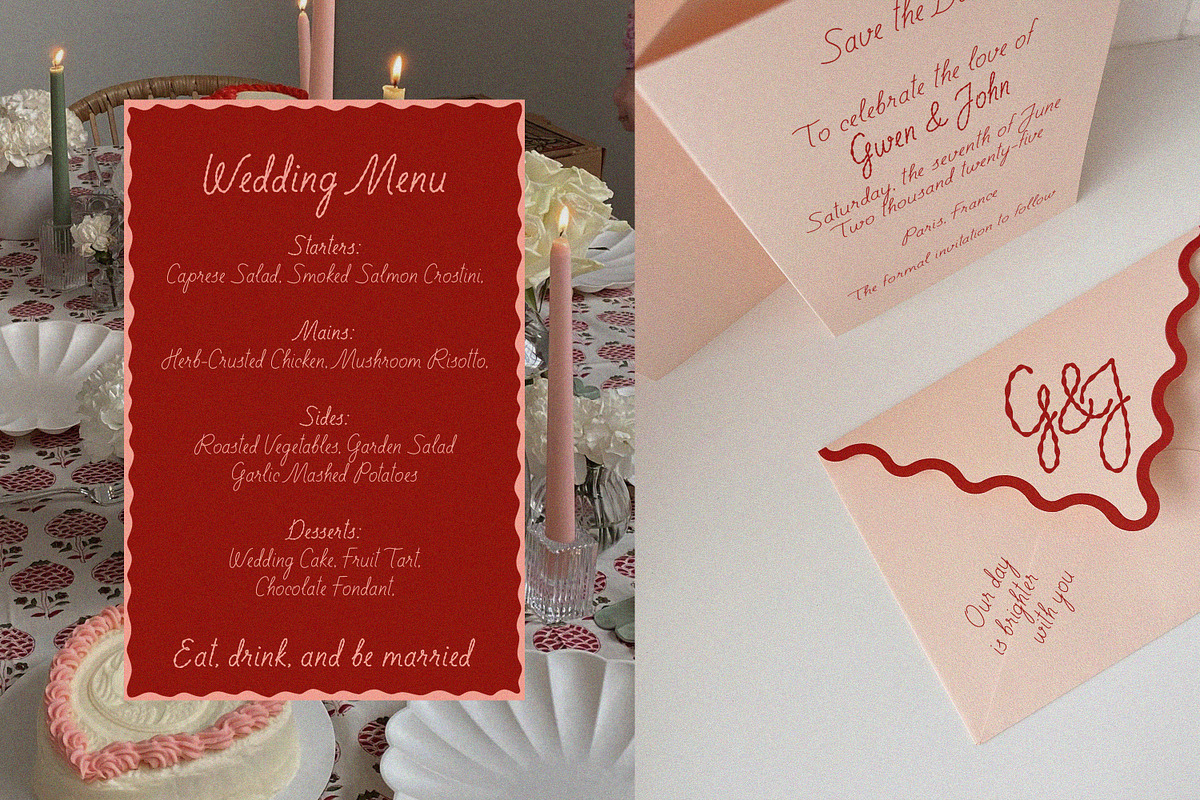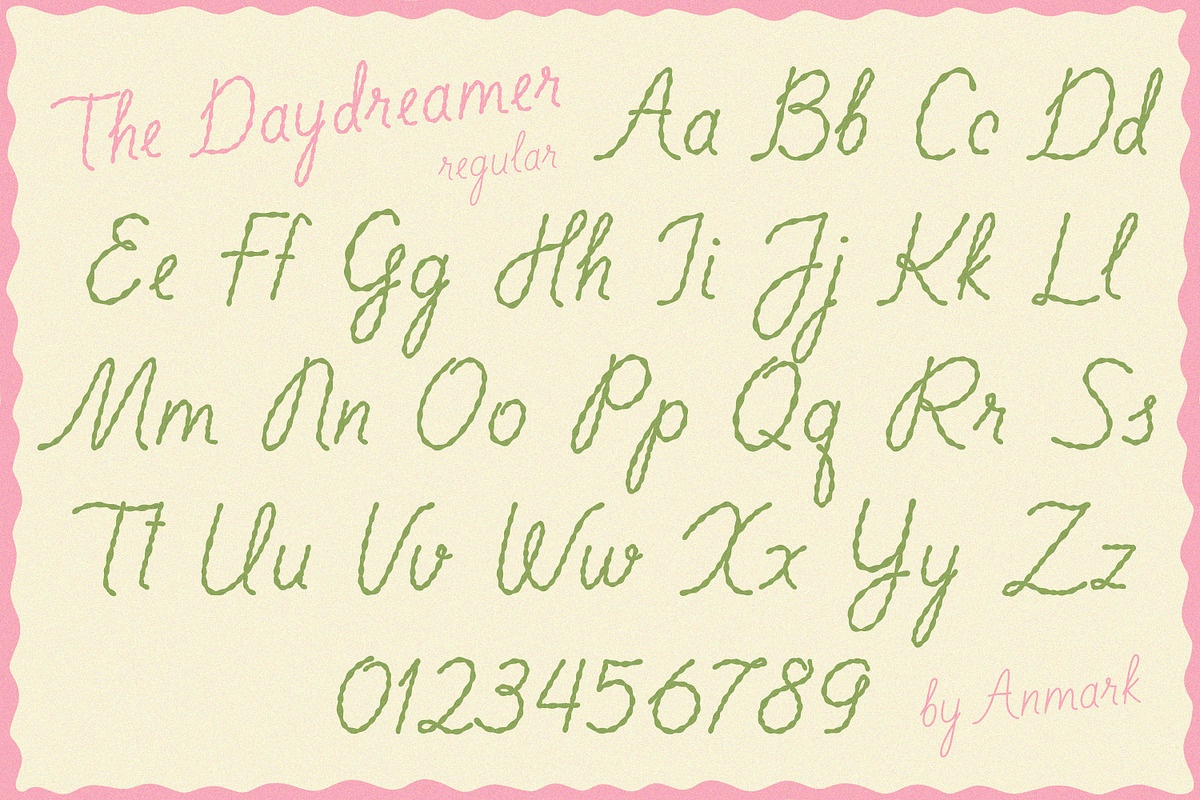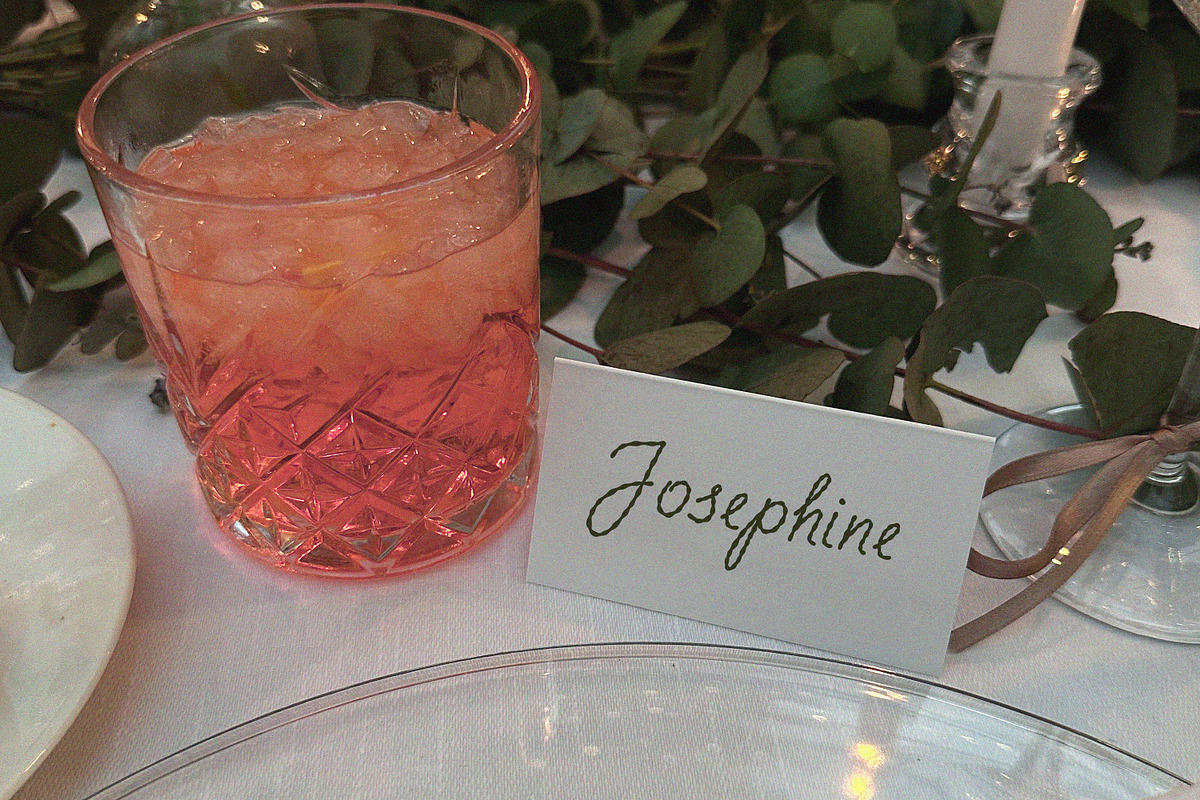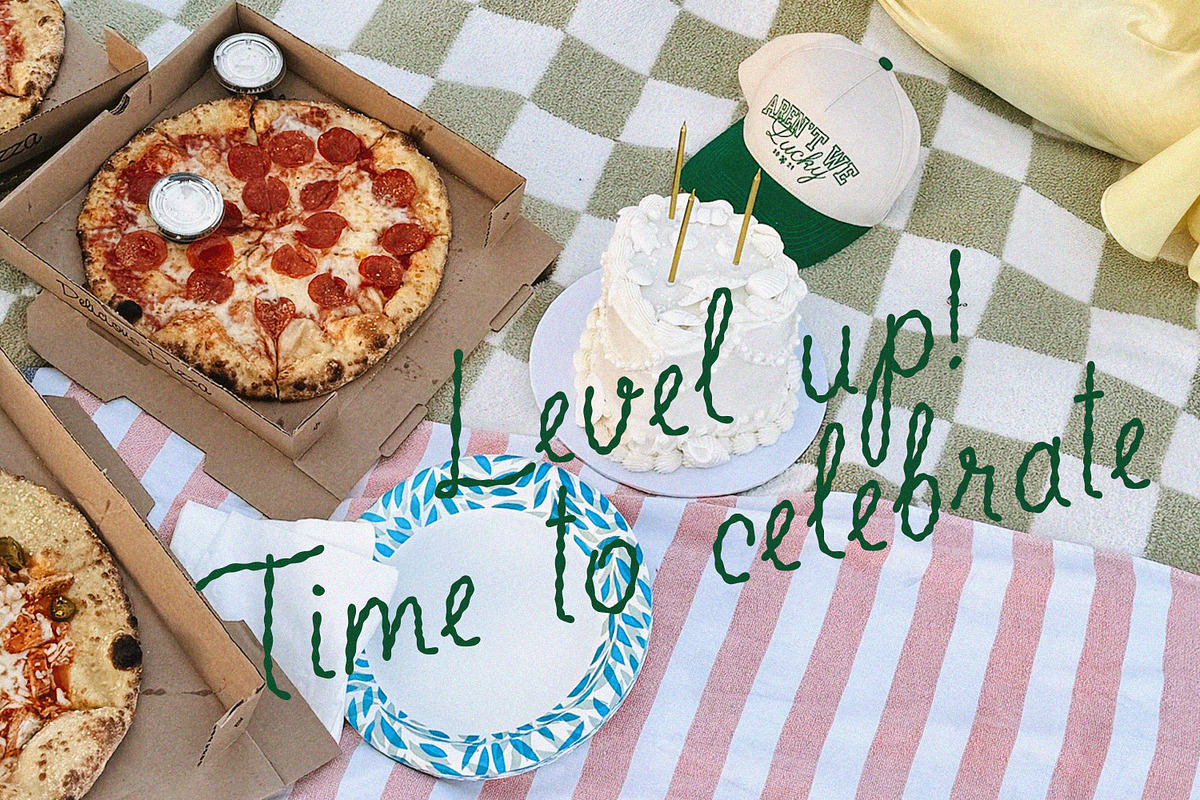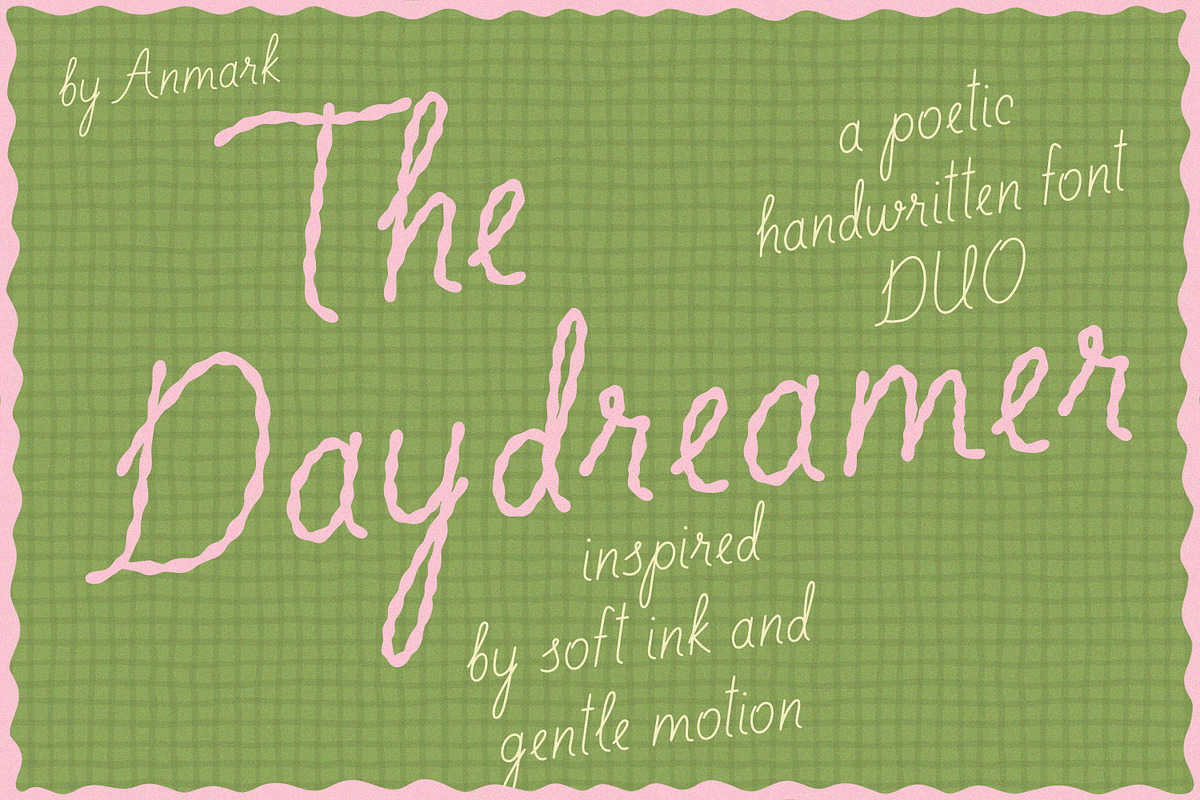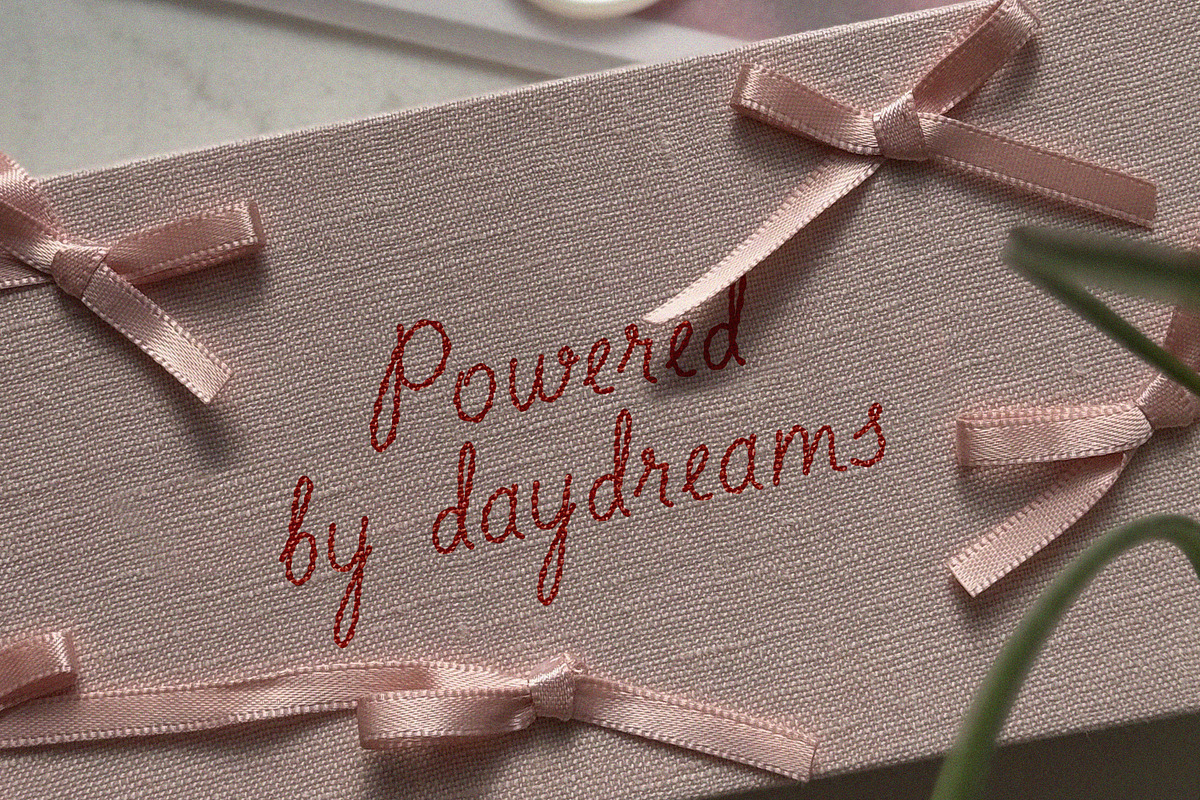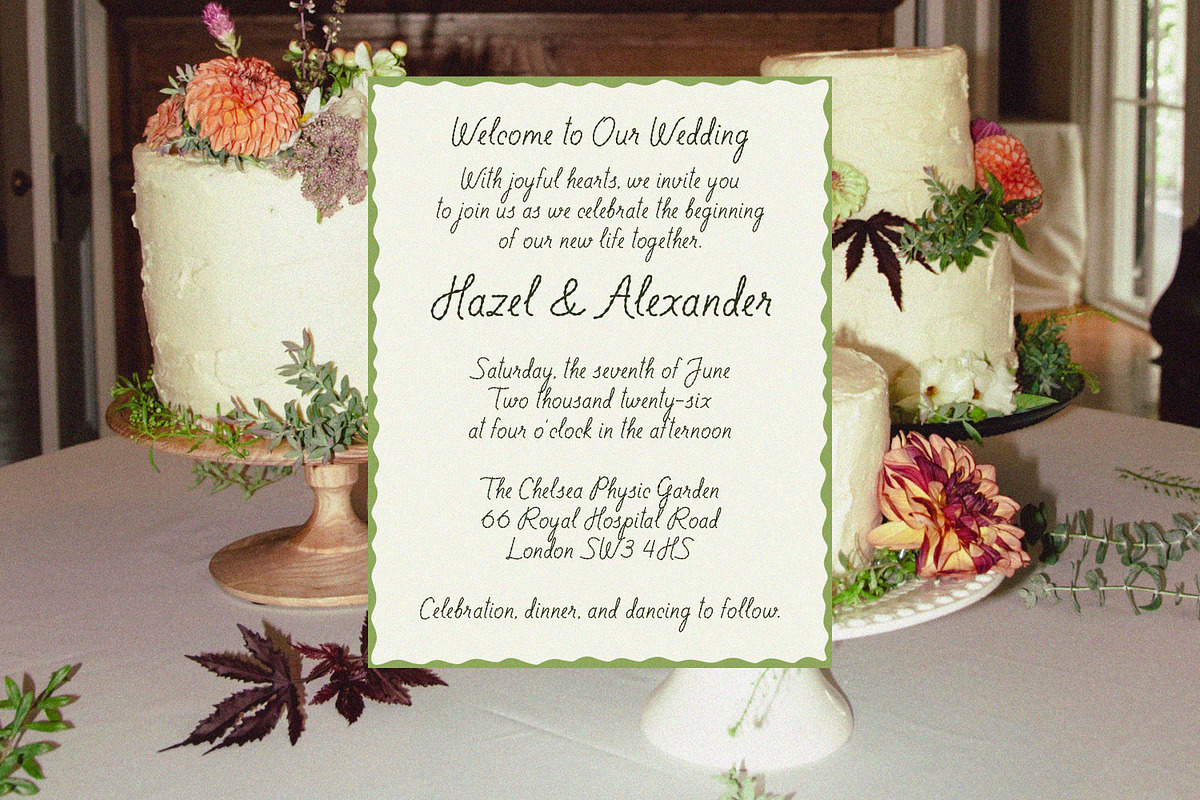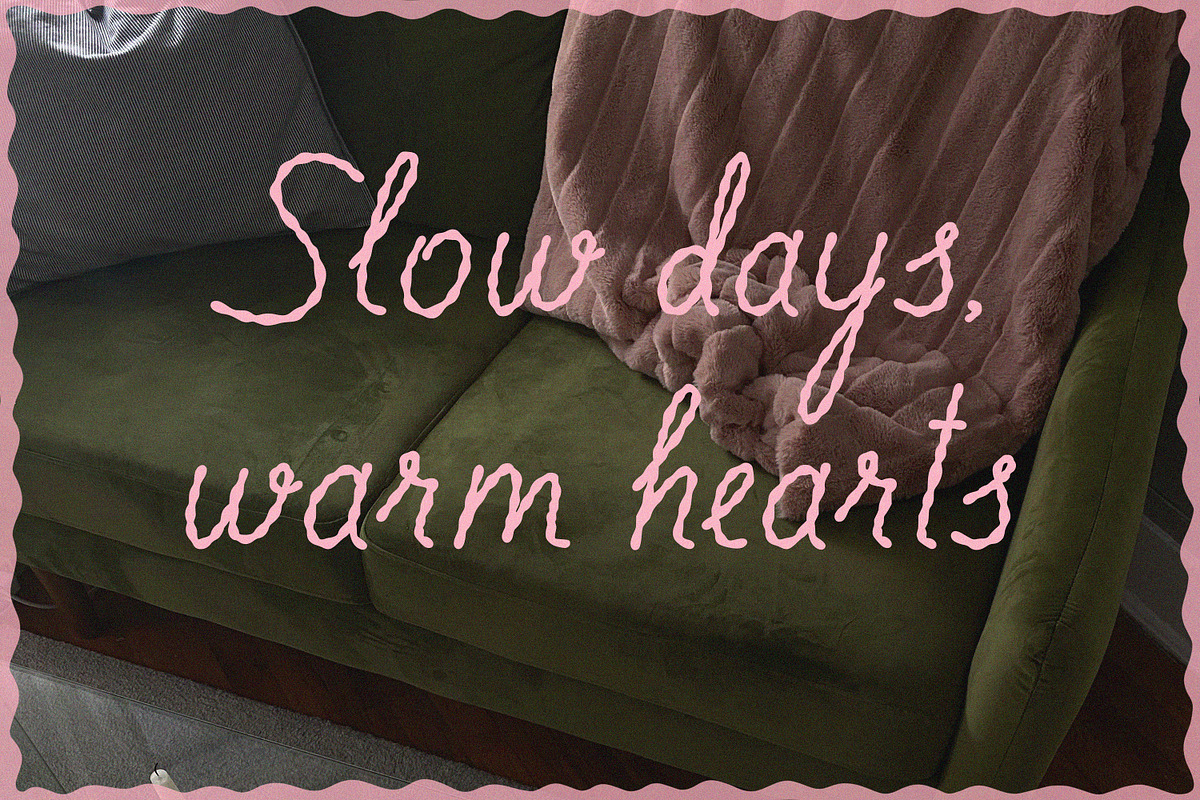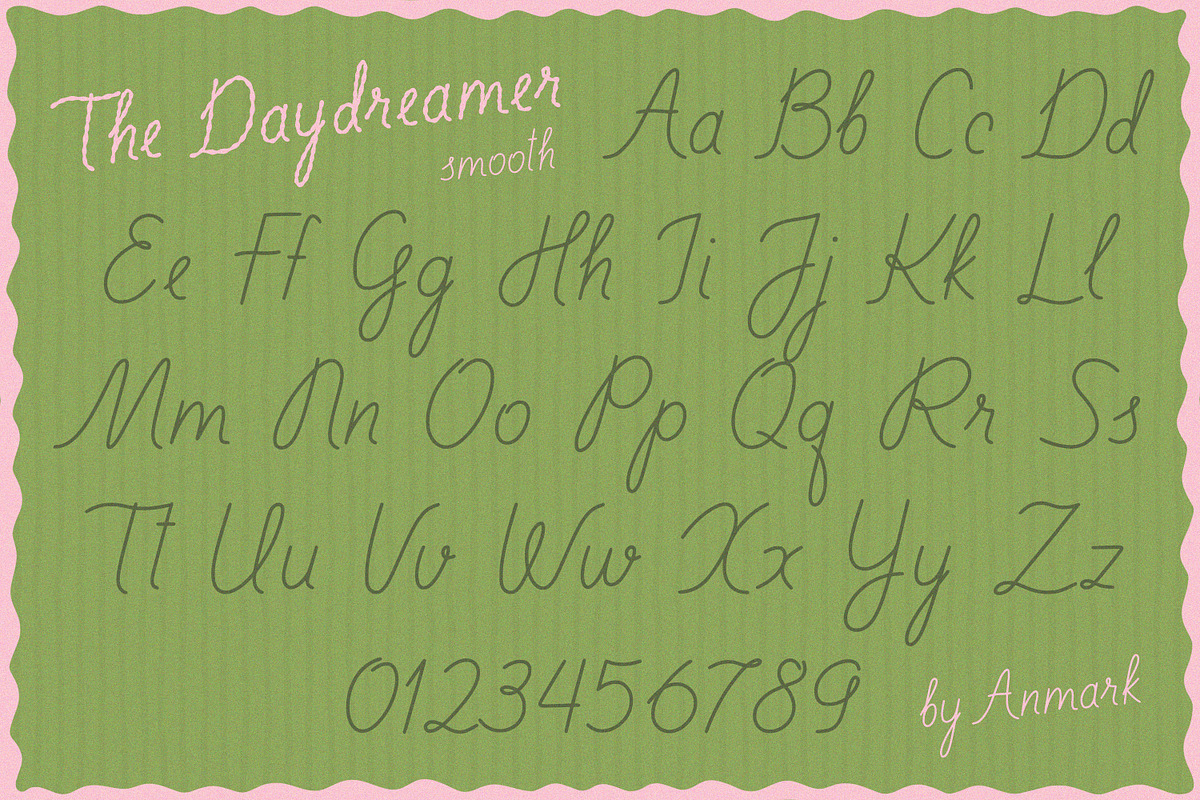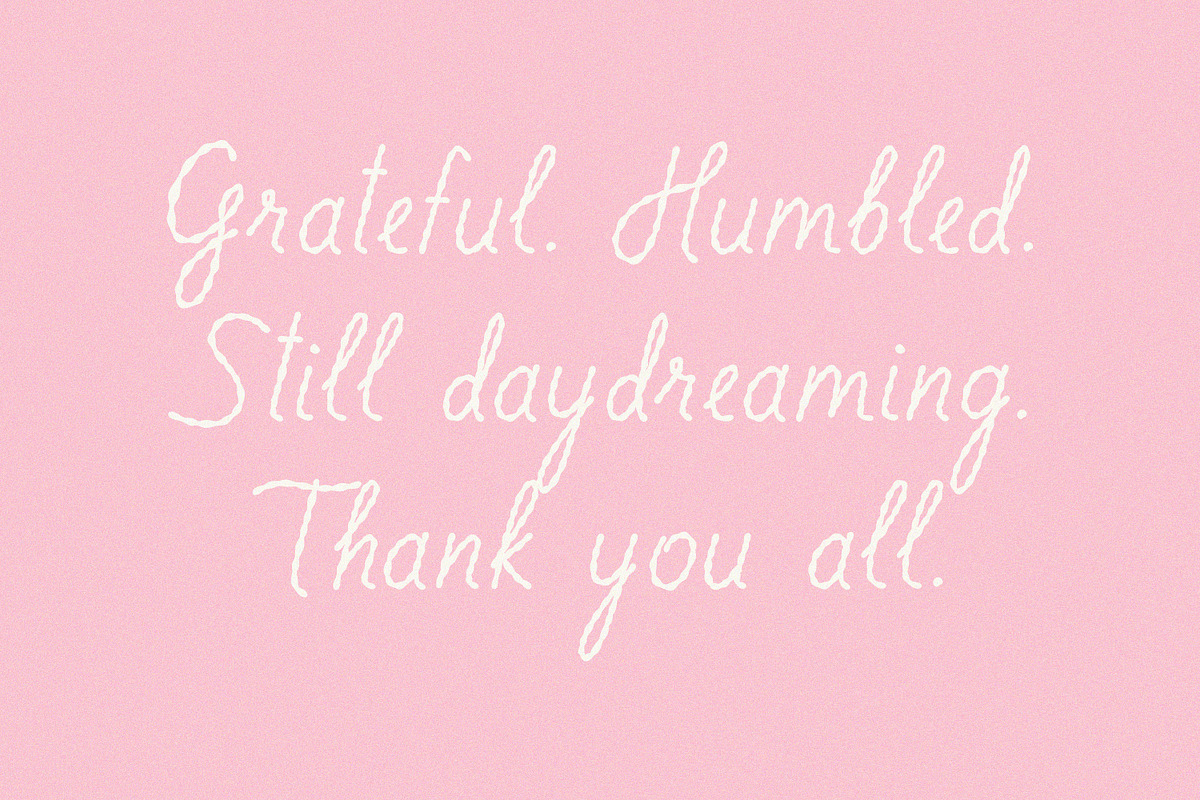
The Daydreamer Romantic Font DUO
The Daydreamer - Handwritten Font Duo
Meet The Daydreamer, a poetic handwritten font duo that captures the charm of gentle ink and soft motion. The set includes two styles:
- Regular - a delicate, lace-inspired script with ribbon-like strokes and a playful, romantic flow.
- Smooth - a calm, clean companion perfect for balance and readability.
Together they create a dreamy harmony, ideal for wedding stationery, love quotes, branding, packaging, social media posts, and lifestyle projects that call for a touch of grace and whimsy.
Let The Daydreamer add a whisper of nostalgia and elegance to your words - where every letter feels handwritten with love.